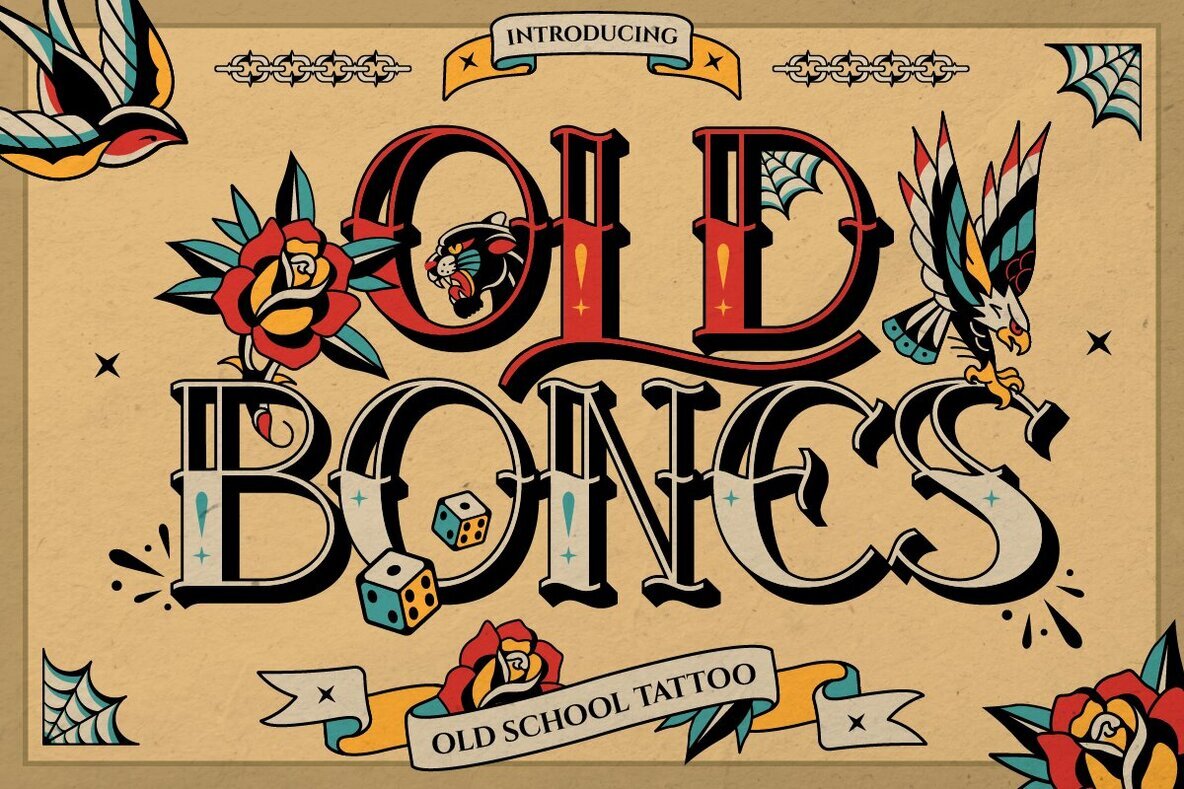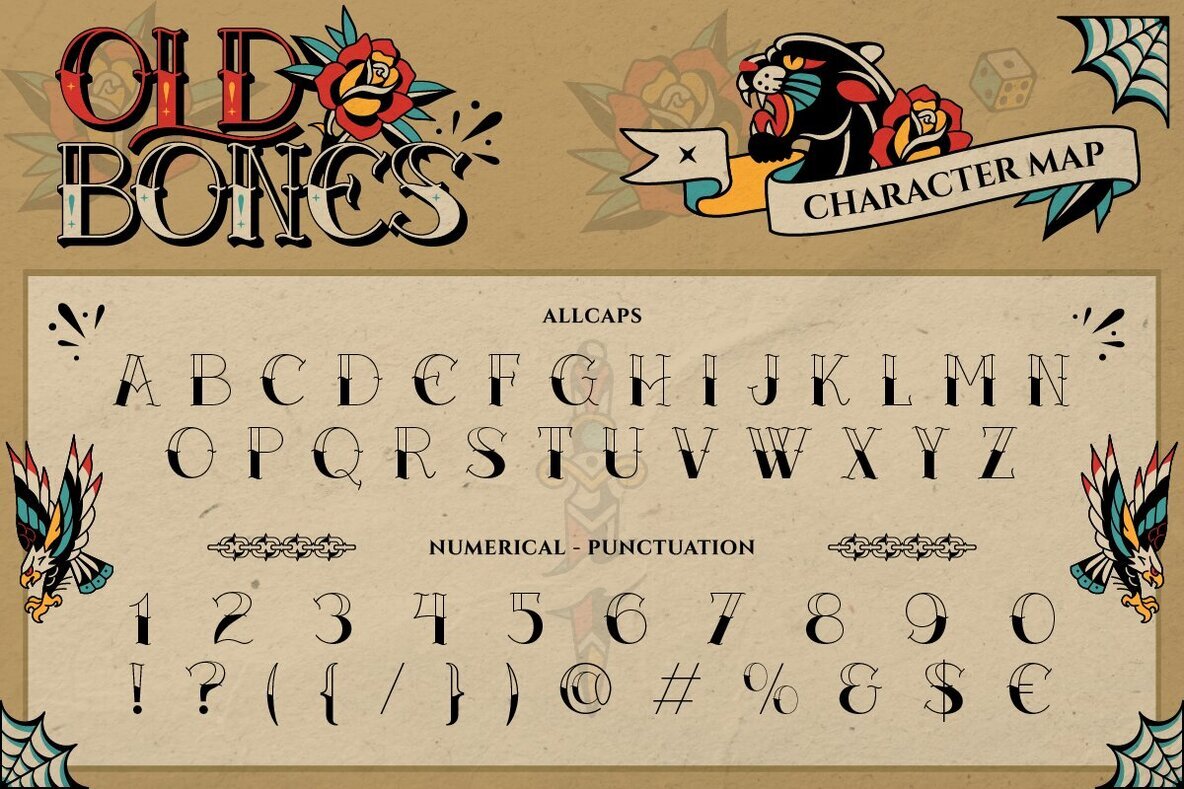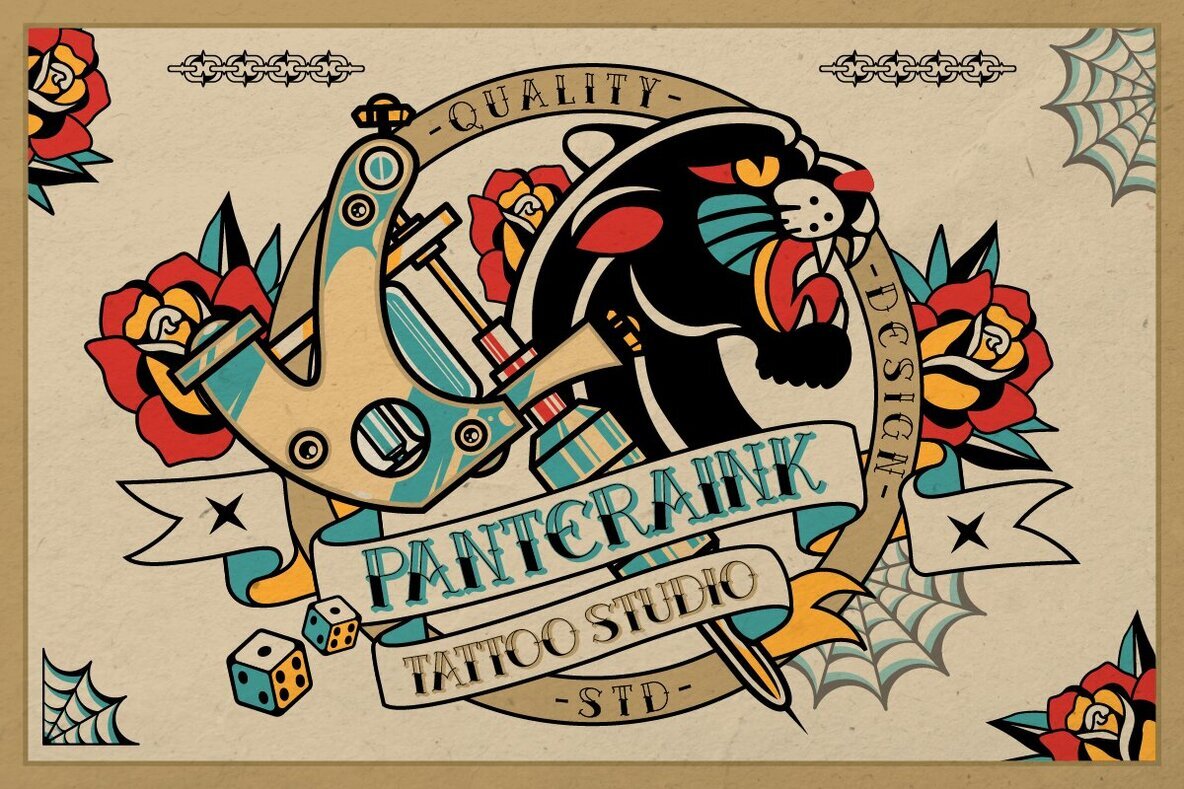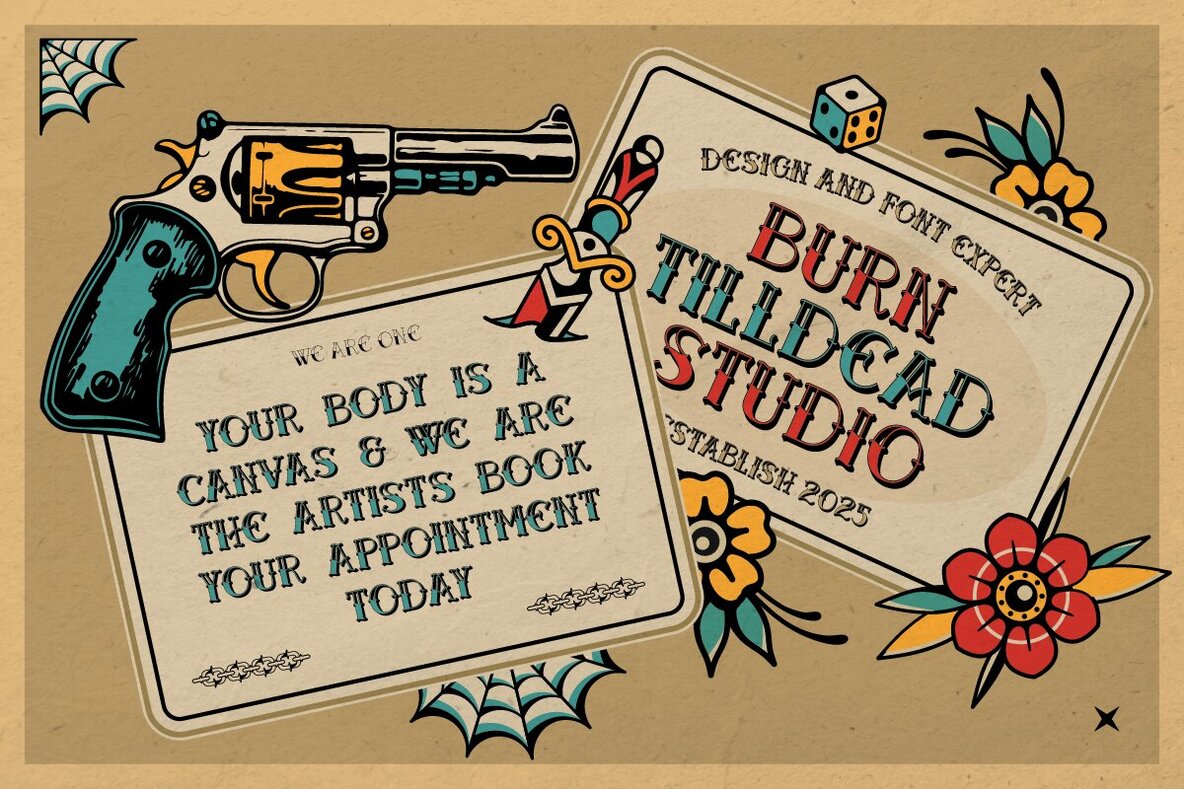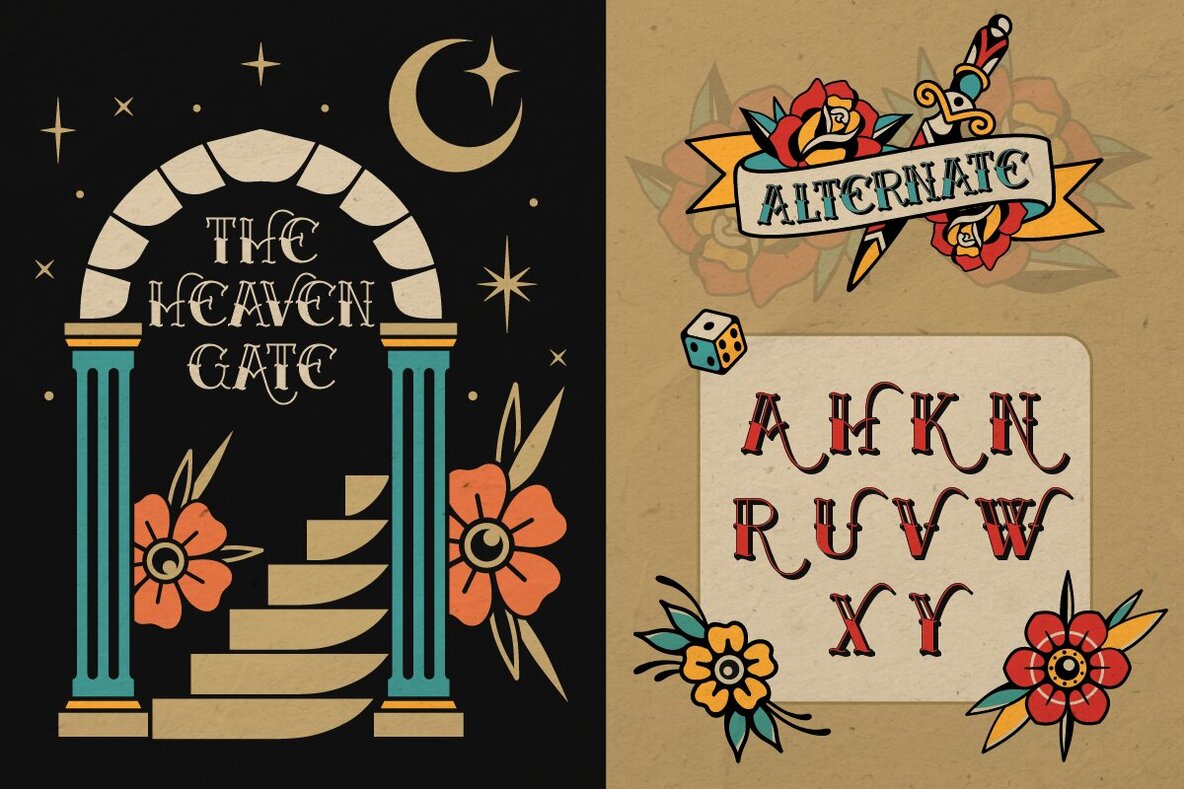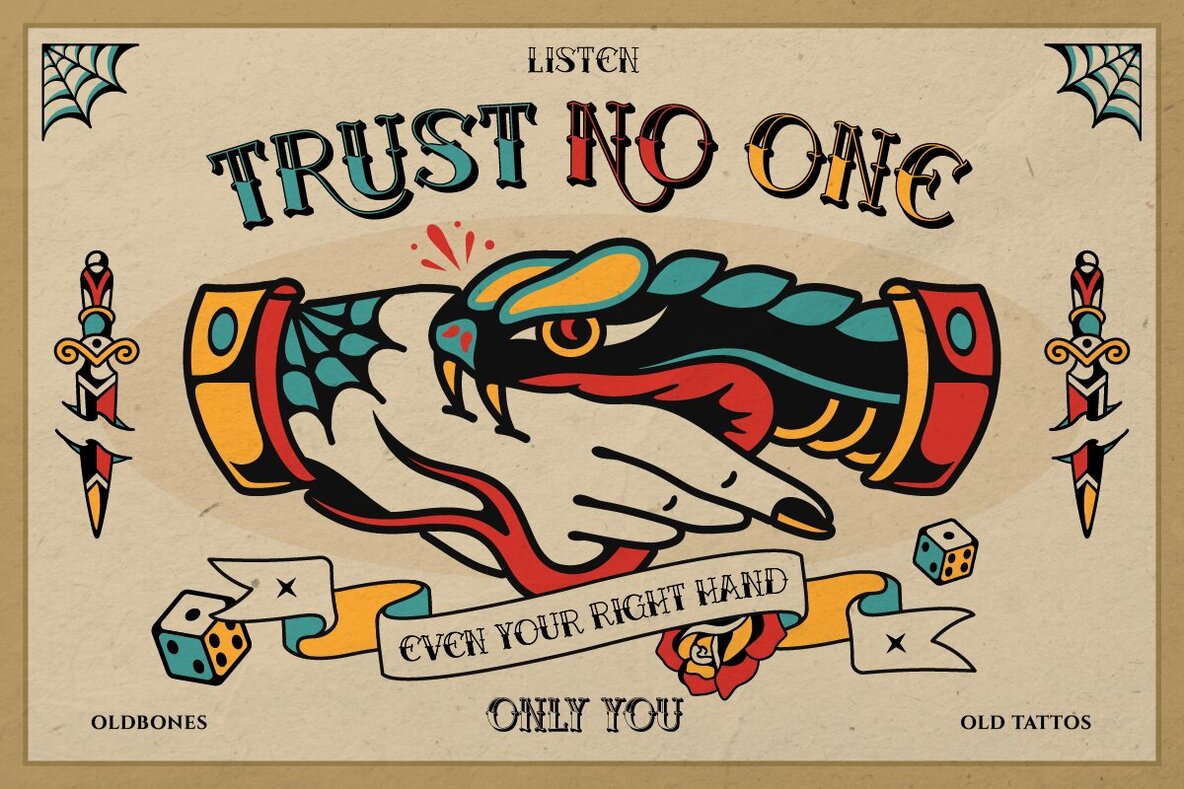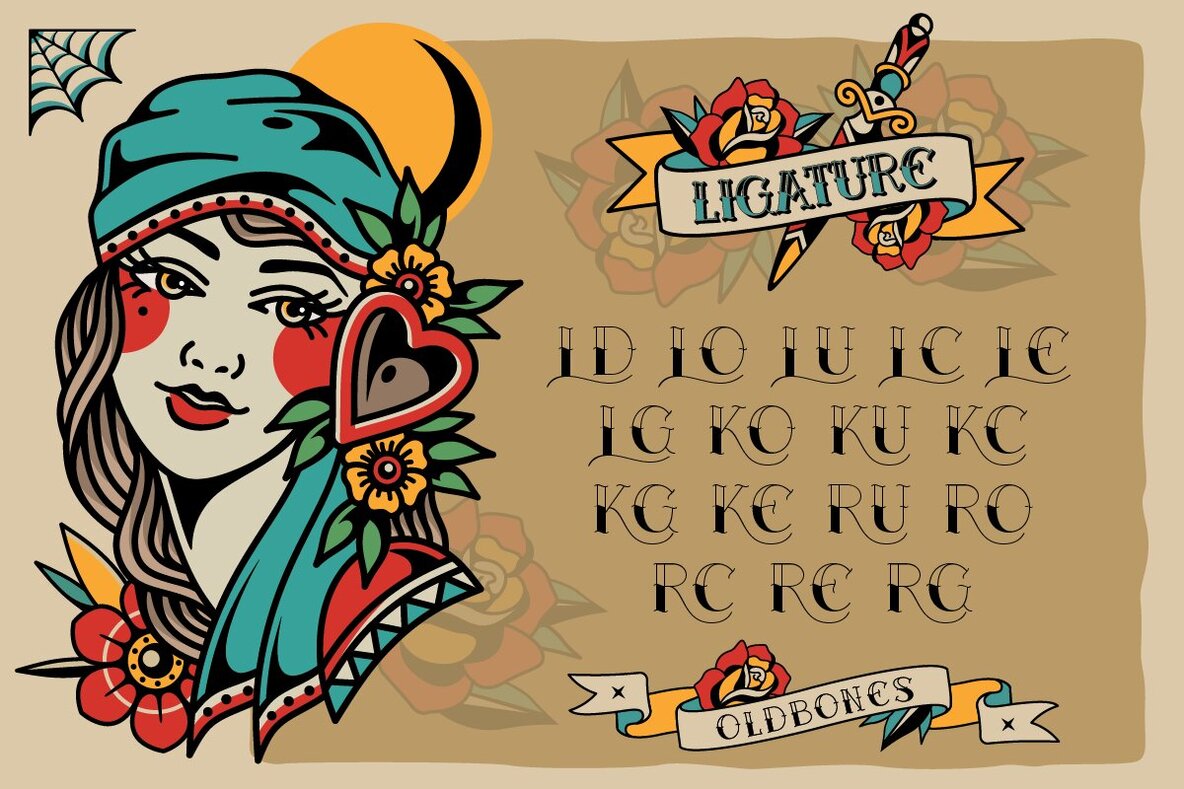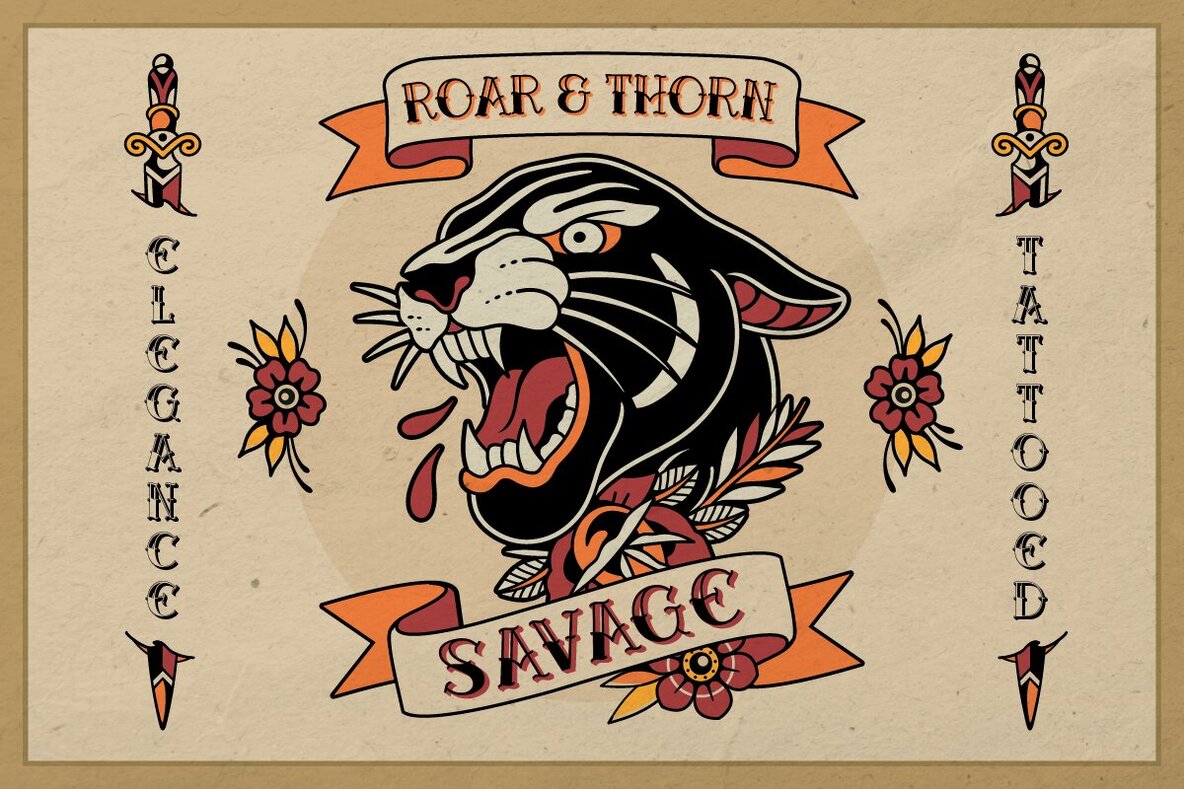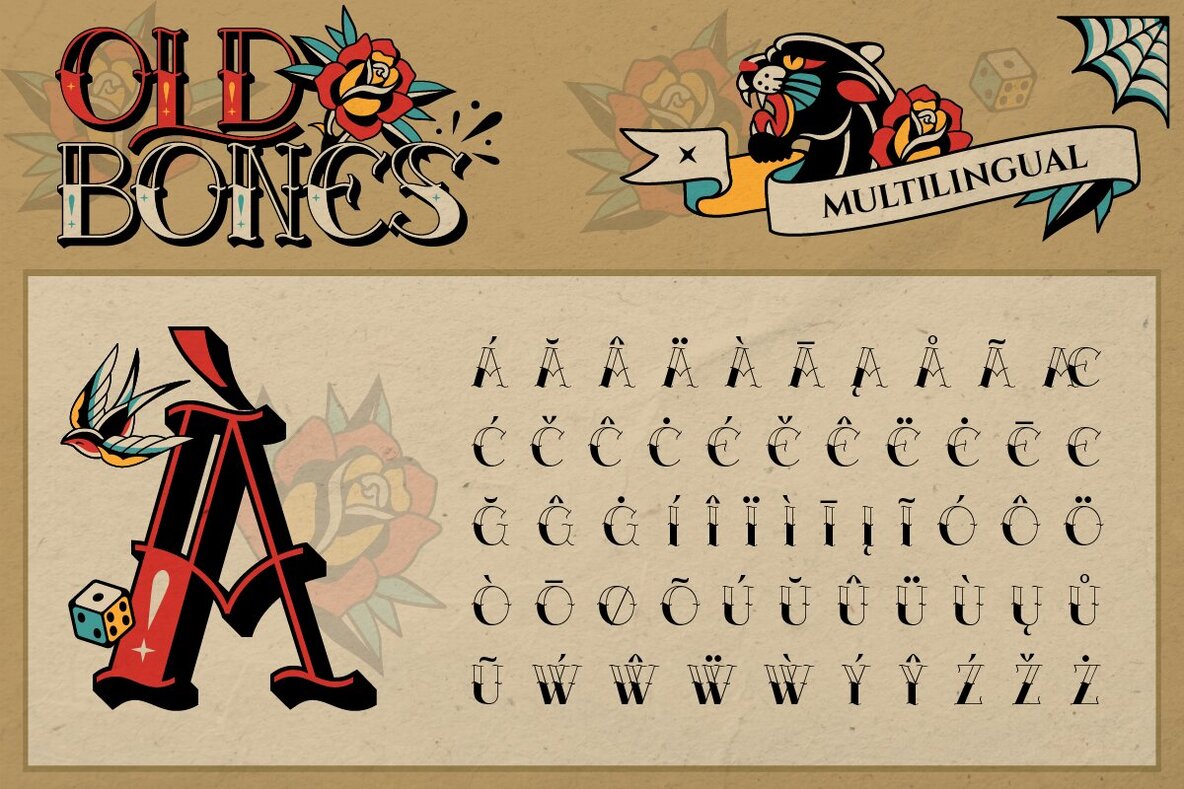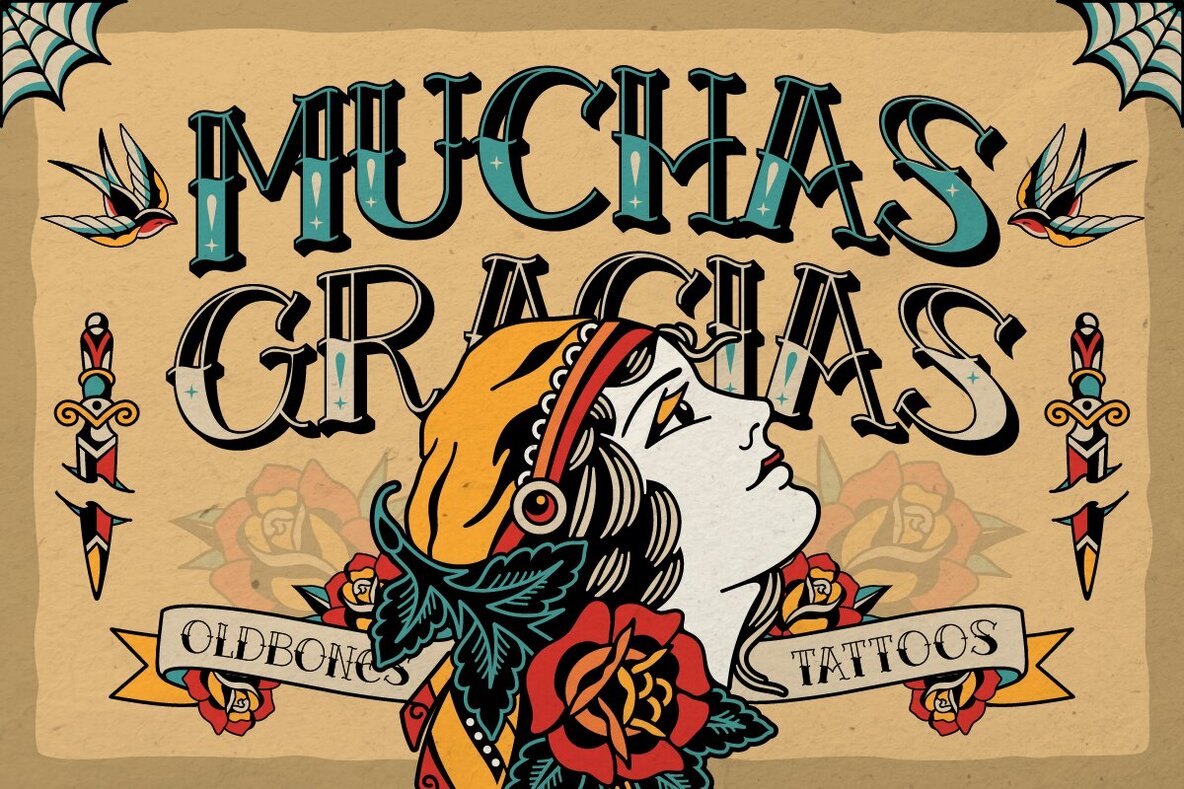
Oldbones Font
Oldbones Regular
Oldbones 3D
Step into the world of Oldbone, a font inspired by the timeless aesthetic of 1950s tattoo studios. Its design captures the essence of classic ink styles with a modern twist to infuse your projects with boldness and character. Available in Regular and 3D styles, this typeface channels the traditional American tattoo artistry as an exciting muse for lettering tattoos. Oldbone is an exceptional fit for clothing brands, barbershops, tattoo studios, or cafés embracing a vintage or rockabilly theme. Whether crafting gig posters, album covers, or unique stickers, Oldbone ensures your creations command attention. More than a font, Oldbone embodies an attitude of rebellion and individuality.Oldbone: The Spirit of 1950s Tattoo Culture